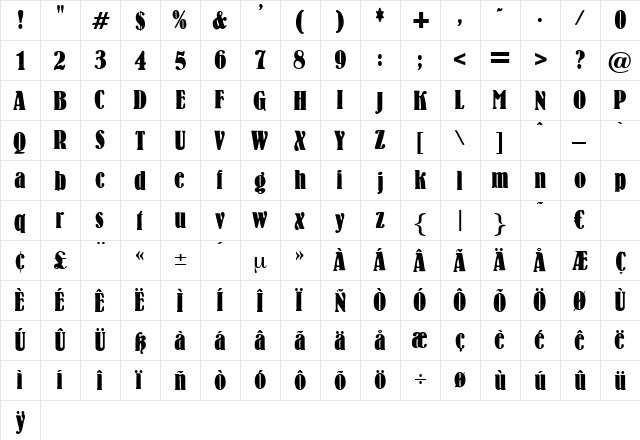
Laurin Regular
Design Context for Laurin Typeface
Laurin is a composed and adaptable typeface that performs quietly and consistently across a wide range of design contexts.